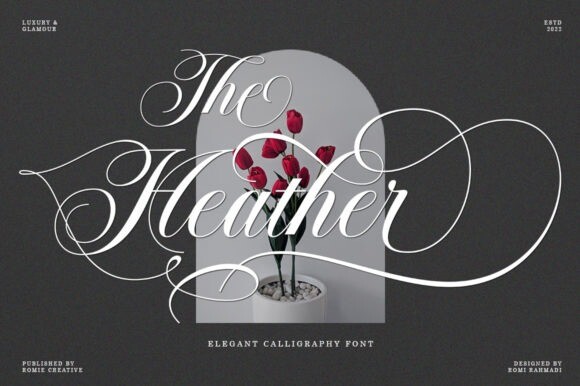
The Heather Font
The Heather is a flowing and delicate handwritten font that embodies charm and elegance in every character. Use it for projects that need lovely, romantic typography! This font is PUA encoded, which means you can access all of the glyphs and swashes with ease!